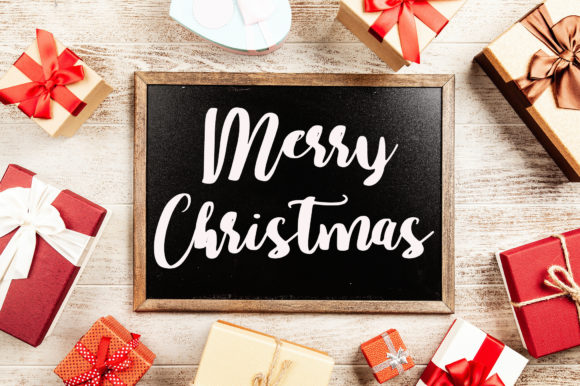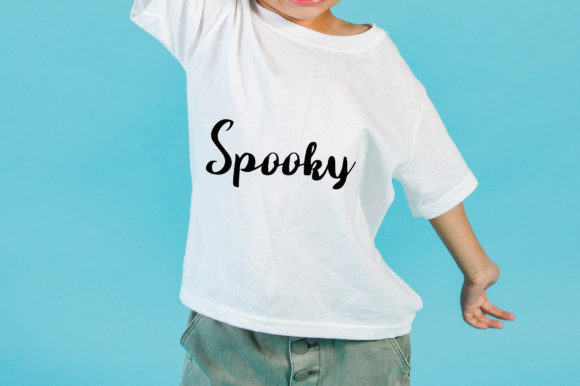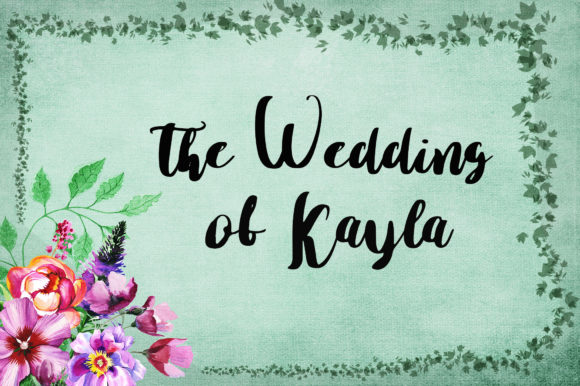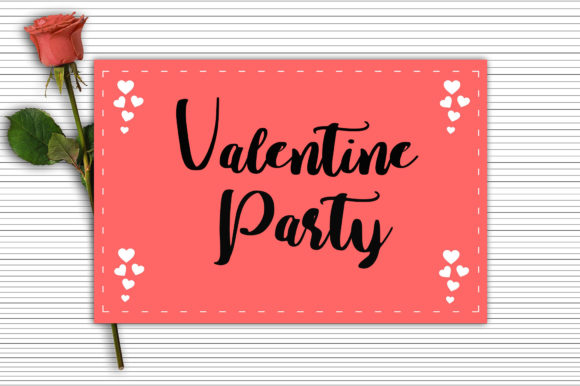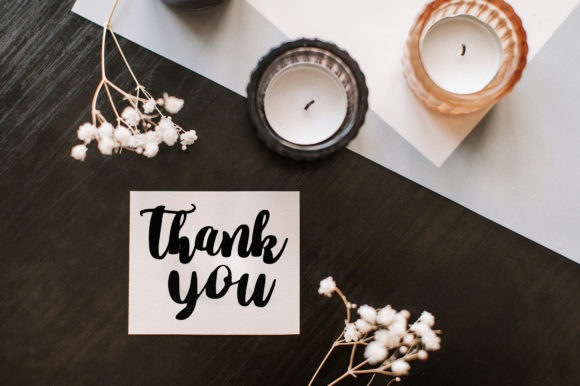
The Perfect Font for Spring: Introducing Easter Day Font
As you sit at your desk, surrounded by scraps of paper, pens, and a million ideas swirling in your head, the perfect font is the missing piece that brings your creative vision to life. For designers and crafty enthusiasts, finding the right font can be a daunting task – one that can make or break the aesthetic of your project. But what if I told you that I’ve discovered the perfect addition to your font family?
Meet Easter Day Font, a charming handwritten font that effortlessly combines classic calligraphy with a modern twist. This versatile font is perfect for adding a touch of personality to your stationery, titles, and letterheads. Whether you’re a seasoned designer or a crafty beginner, Easter Day Font is sure to become a true favorite in your font collection.
Easter Day Font Key Features
- Unique Characteristics: The Easter Day Font features a unique blend of traditional and modern design elements, with intricate details and ornaments that evoke a sense of celebration and festivity.
- Font Style: The Easter Day Font is available in three styles: Regular, Bold, and Italic, providing flexibility for designers to choose the perfect style to match their project’s tone and atmosphere.
Easter Day Font Review
First impressions of the Easter Day Font are quite charming. The font is designed to evoke the feeling of spring and new beginnings, and it succeeds in doing so ✨. The playful and whimsical nature of the font makes it perfect for Easter-themed projects or designs that need a touch of festive cheer.
The Easter Day Font comes in a range of weights and styles, from light and airy to bold and decorative. This versatility makes it suitable for a variety of design applications, from invitations and greeting cards to packaging and branding.
- ⚠️ The font may not be suitable for formal or professional designs, as its playful nature may come across as unprofessional.
- ⚠️ Some users may find the font’s character set limited, particularly when it comes to accents and special characters.
- ⚠️ The font’s aesthetic may be too cutesy or childish for some tastes, which may limit its appeal.
Overall, the Easter Day Font is a delightful addition to any designer’s toolkit. While it may have some limitations, its charm and versatility make it a great choice for Easter-themed designs or projects that need a touch of whimsy.
The Easter Day Font is ideal for spring-themed designs, Easter cards, and holiday decorations. To get the most out of it, use it in combination with pastel colors and floral patterns to create a cohesive look. Experiment with different font sizes and styles to add visual interest and emphasize important text.
Q: What is the recommended font size for using Easter Day Font?
The recommended font size for Easter Day Font is between 12pt and 24pt. This will allow the font to display its intricate details and flowing connections effectively. However, feel free to experiment with different font sizes to find the perfect fit for your design project.